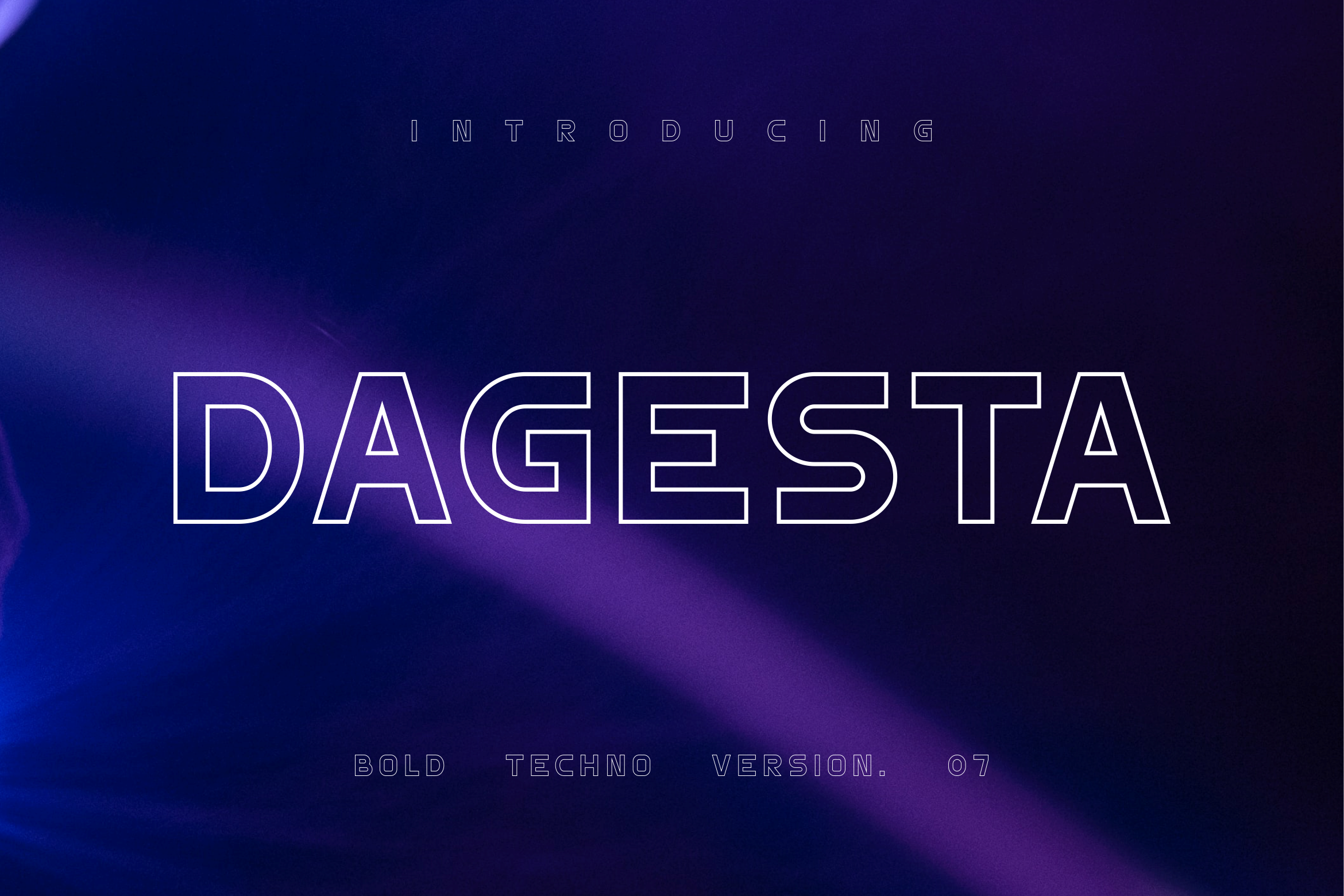
Dagesta Techno Sans 2 Style Font
Introducing Dagesta, an audacious sans serif font that beautifully merges the worlds of technology and typography. With its techno-inspired design, Dagesta exudes boldness, making it perfectly suited for cutting-edge applications like the metaverse and beyond. Experience the synergy of form and function that Dagesta offers, capturing the dynamism of technology in each meticulously crafted character. Let Dagesta elevate your digital designs to an entirely new level of sleek sophistication.